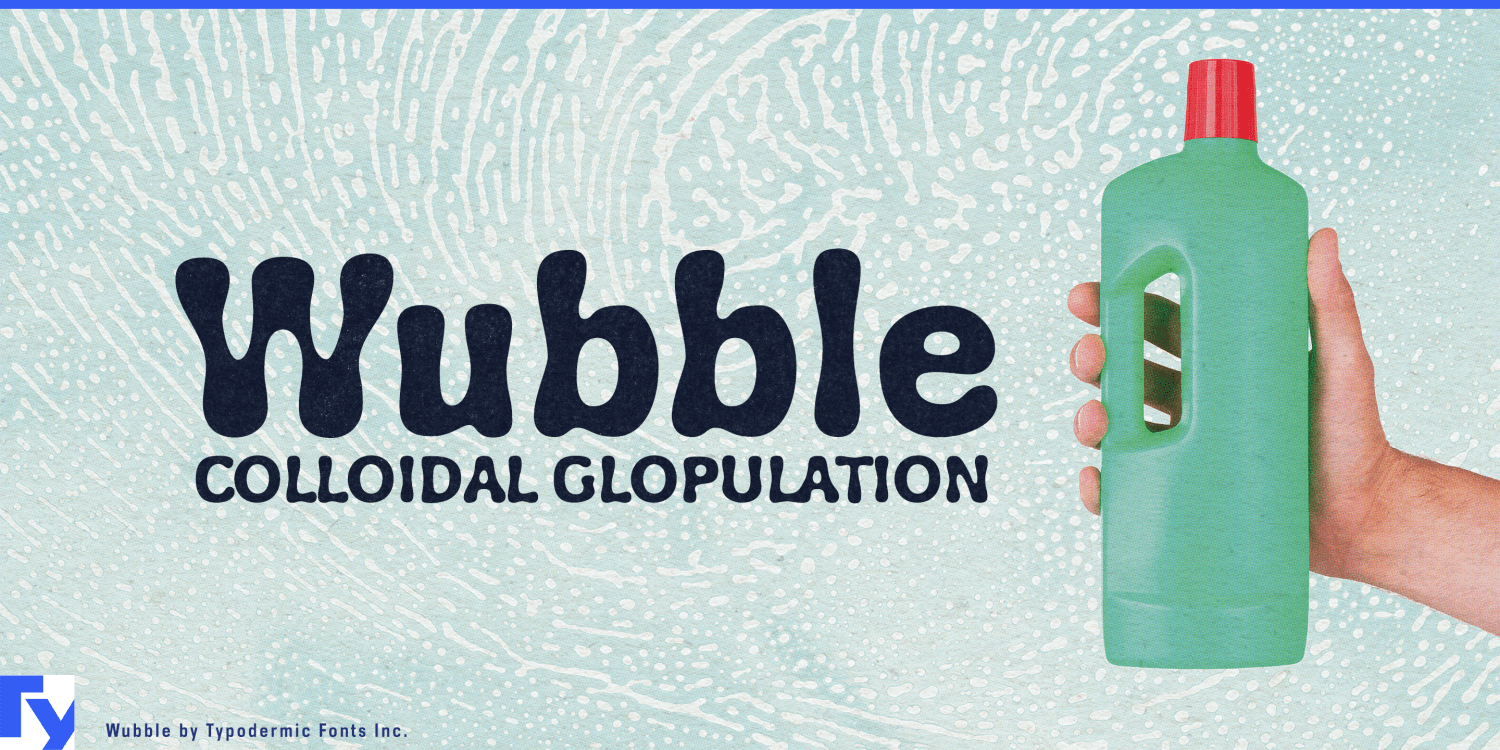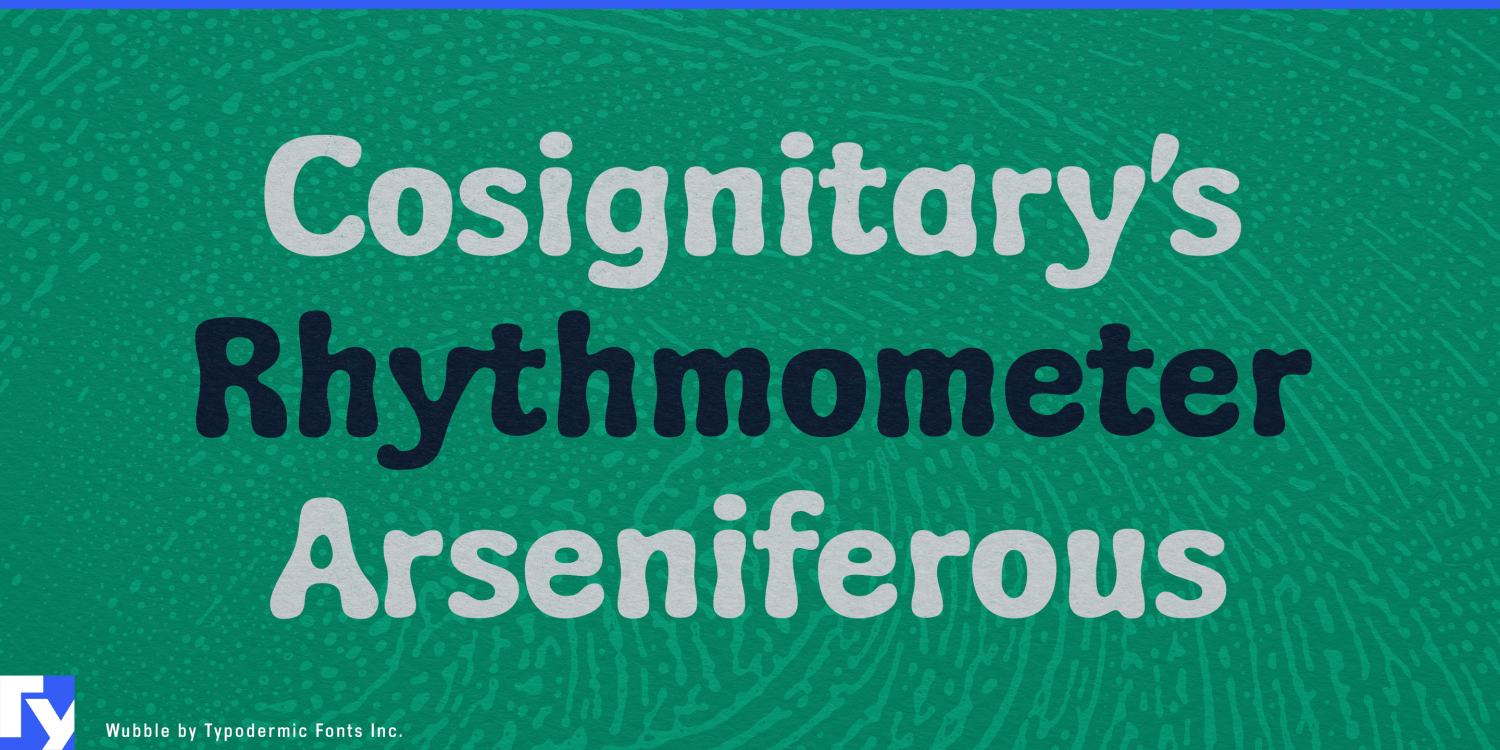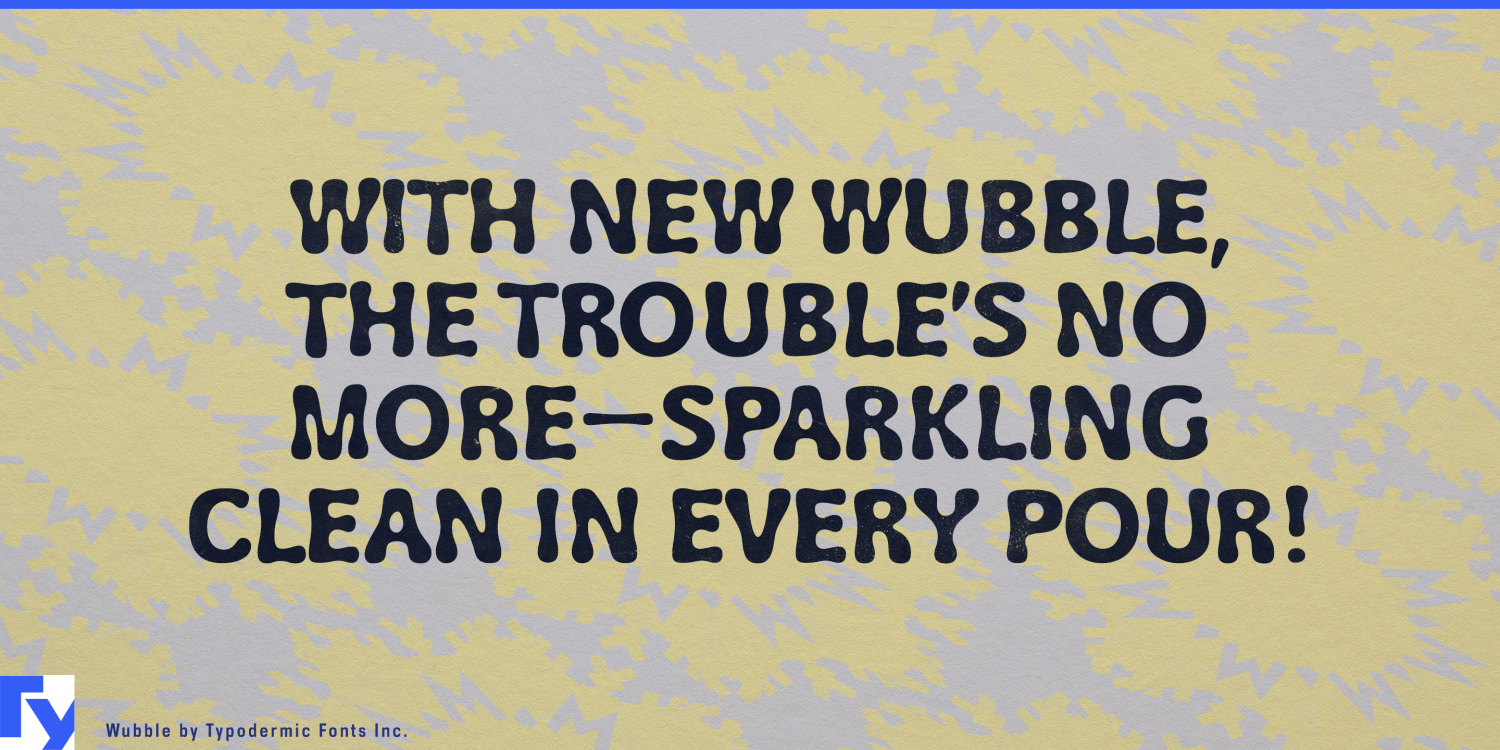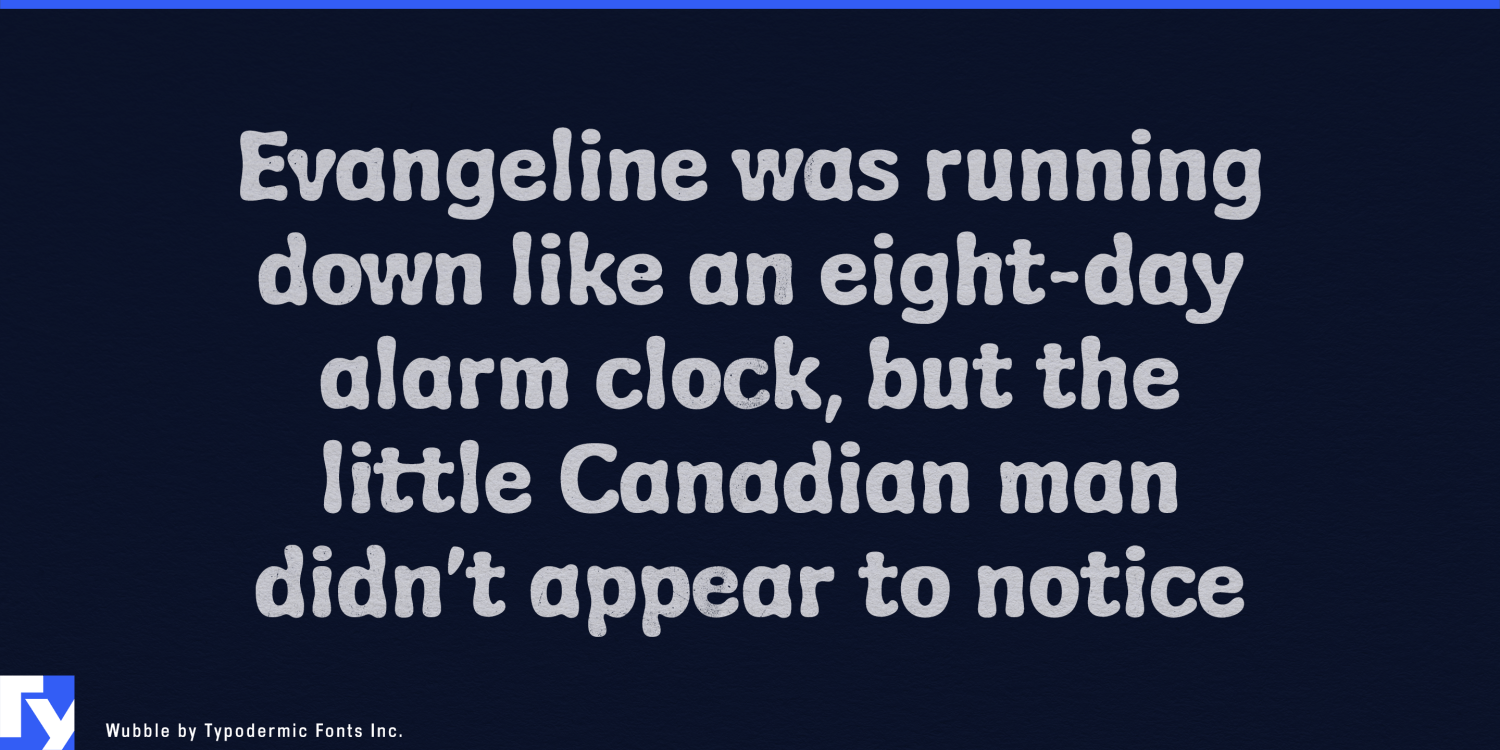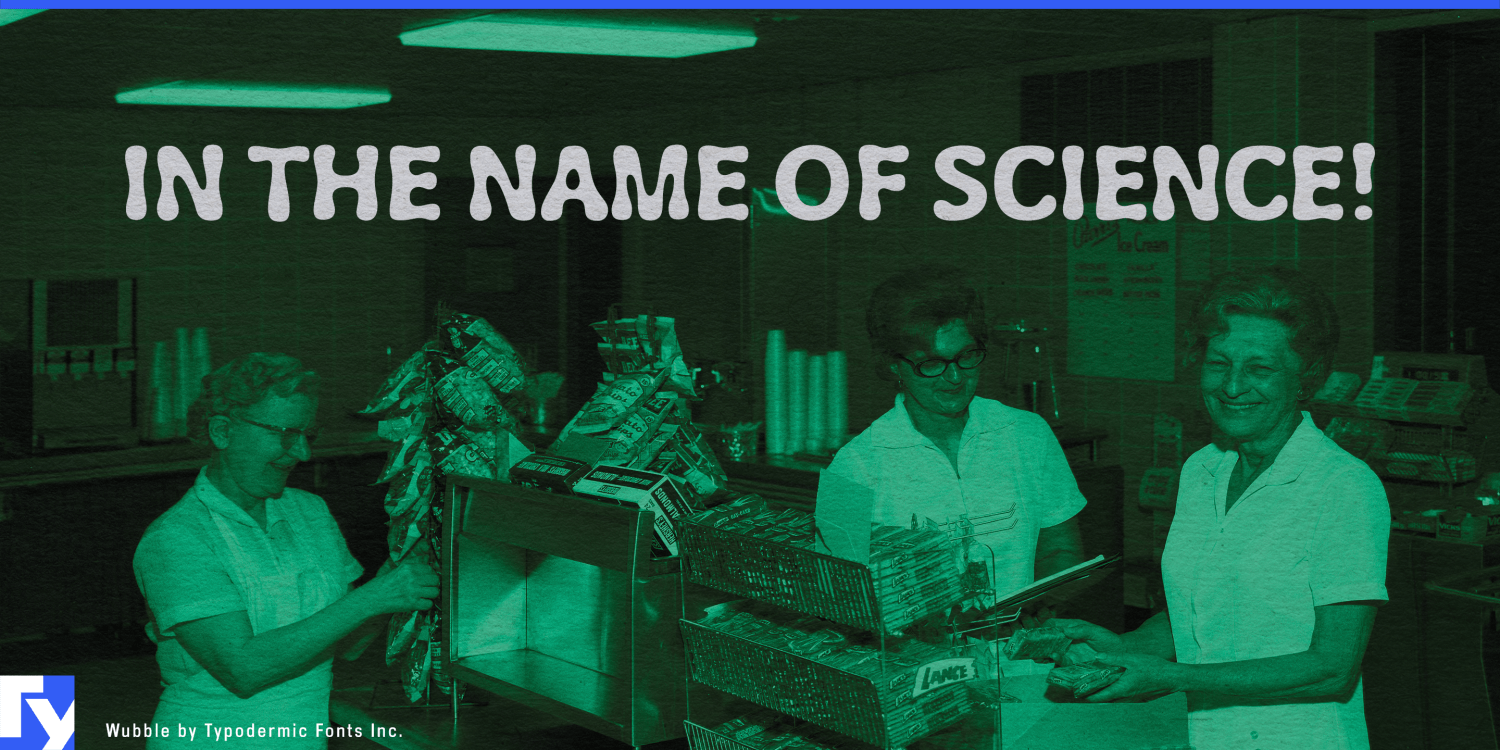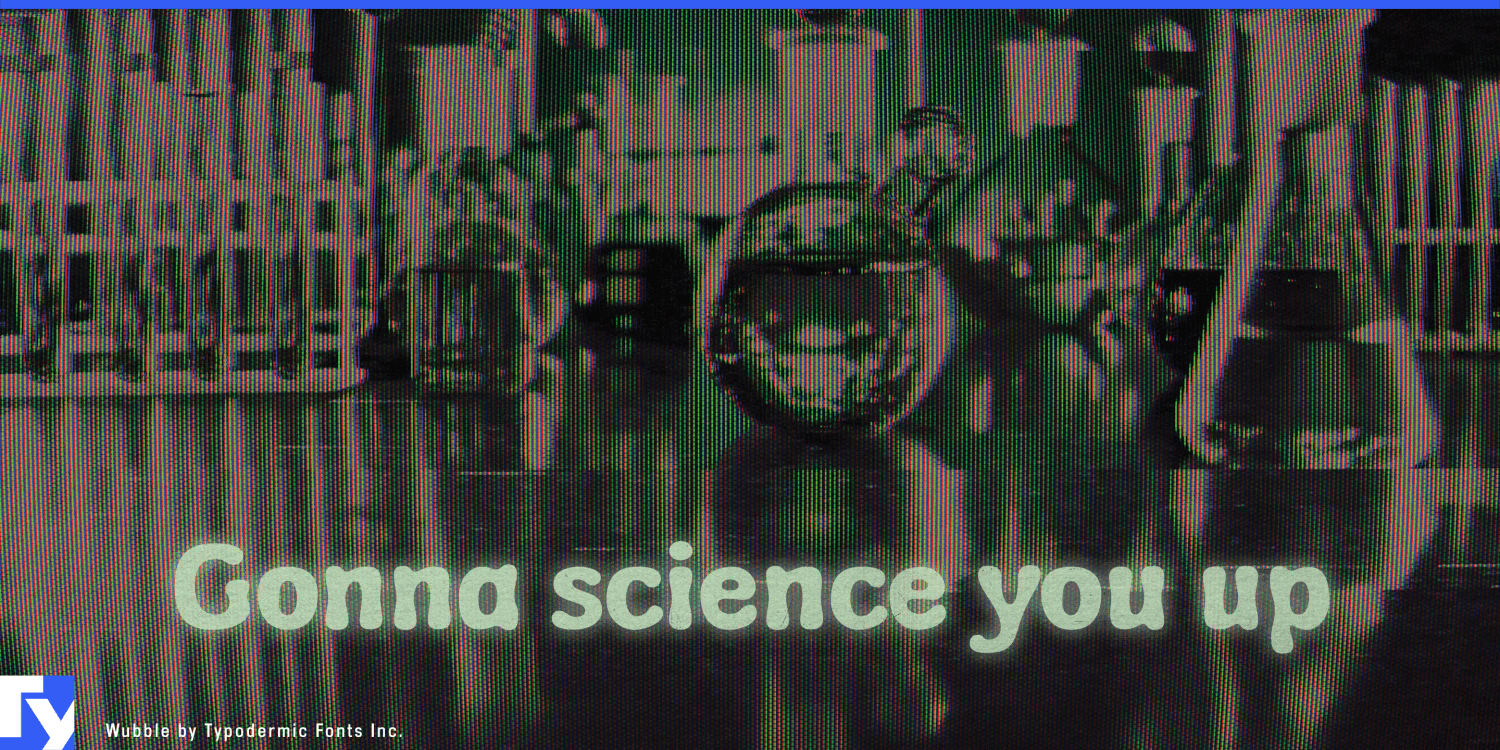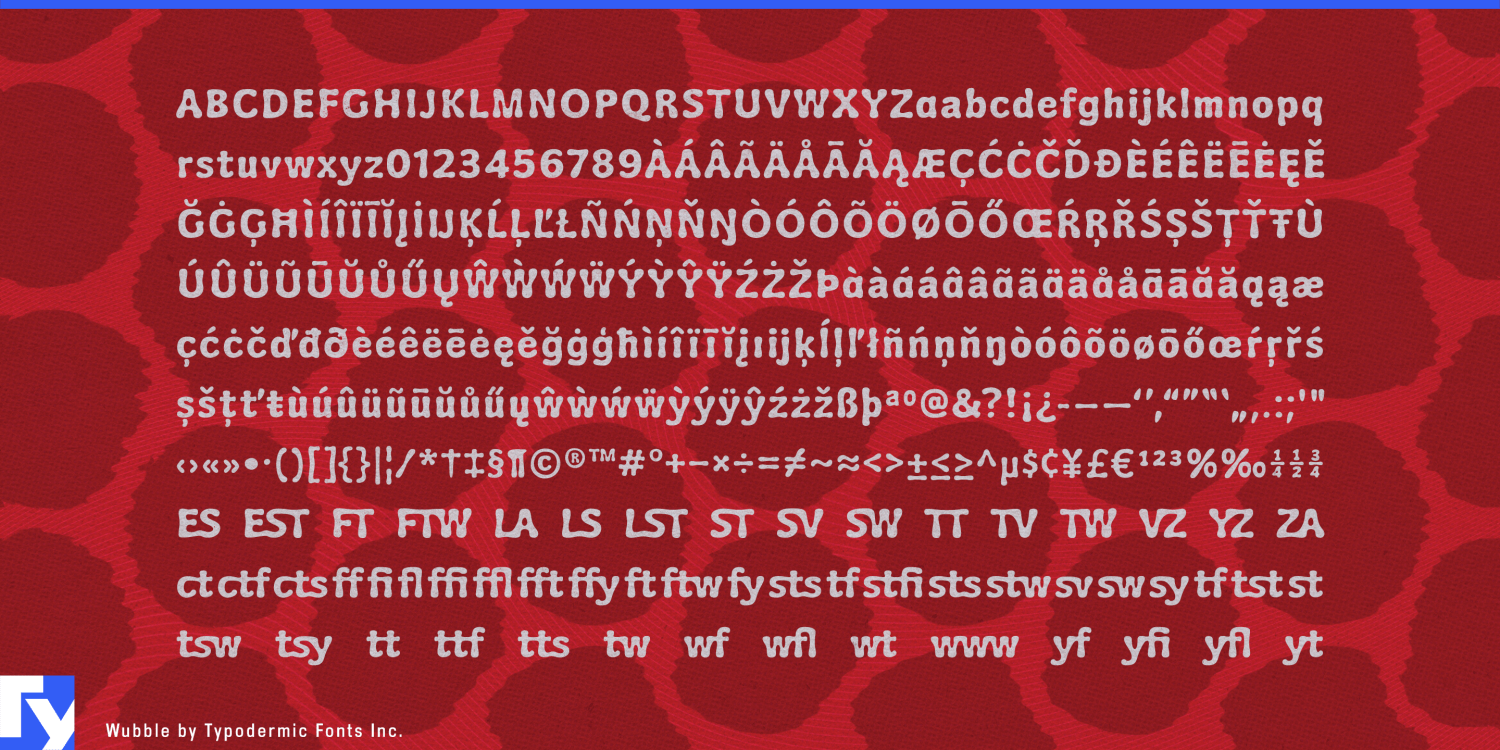
Wubble
Font Family by Typodermic
Buy NowSome products are difficult to describe with typography because their most important quality is physical. A gummy is chewy. A cleansing gel is slippery. A detergent is liquid and foamy. A sensory toy deforms when squeezed. Wubble gives those qualities typographic form by making its letters look softened, swollen, squeezed, or partially melted while keeping enough conventional structure underneath to remain readable.
That makes Wubble particularly useful for household liquids and cleaning products. Dish liquid, laundry detergent, fabric softener, stain remover, refill concentrates, and brightly packaged surface cleaners all deal in viscosity, bubbles, dilution, and transformation. Wubble can handle scent names, product variants, bottle-front claims, refill-pouch graphics, multipack cartons, and campaign headlines while a neutral companion face carries dosage, ingredients, and safety information.
Bath, body, and hair products offer a similar material connection. Body wash, shampoo, conditioner, bubble bath, hair gel, cleansing jelly, styling cream, and foaming shower products can use Wubble for texture names, fragrance families, limited editions, travel sets, gift cartons, and retail displays. Words such as Jelly, Foam, Gel, Cream, and Bubble gain a physical quality because the letterforms themselves appear soft and deformable.
Chewy confectionery provides another natural home. Gummies, fruit chews, marshmallows, taffy, jelly candy, and soft-filled sweets can use Wubble for flavor names, assortment labels, sour and sweet variants, seasonal editions, bag fronts, counter displays, and multipack packaging. Gummy supplements can use the same approach when flavor and chewable format are central to the product.
Wubble also fits products meant to be squeezed, stretched, mixed, or poked. Slime kits, sensory compounds, squishy toys, foam products, molding materials, bath experiments, polymer kits, and children’s chemistry sets can use it for product names, experiment titles, texture variants, expansion packs, retail displays, and tutorial graphics. Science centers and children’s museums can apply the same visual language to exhibits about viscosity, polymers, states of matter, bubbles, microbes, or messy chemistry.
Wubble makes typography behave like matter: soft enough to suggest liquid, foam, gel, gummies, or slime, but structured enough to carry product names and repeatable branding across an entire range.